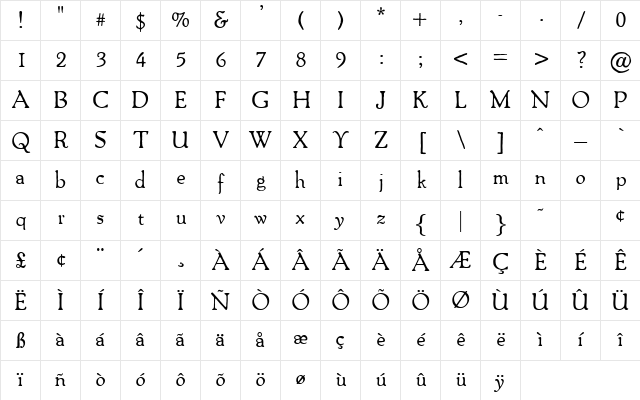
Paliard Regular
Complete Paliard Regular glyph index. Displaying only characters natively supported by Paliard Regular font.
Design Context for Paliard
Paliard is a composed and adaptable typeface that performs quietly and consistently across a wide range of design contexts.